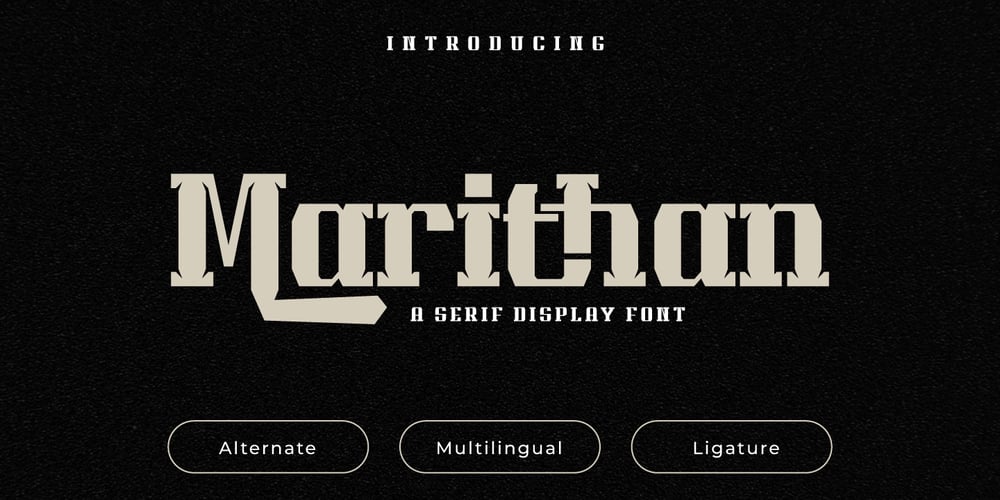
Marithan Font Family was designed by Rozikan and published by Twinletter. Marithan contains 1 styles and family package options. With Marithan, every character is a hunk of hero inspiration. This superhero-style display font is the answer for projects that need great visual flair.What’s Included : File font All glyphs Iso Latin 1 Alternate, Ligature Simple installations PUA Encoded Characters – Fully accessible without additional design software. Fonts include Multilingual support